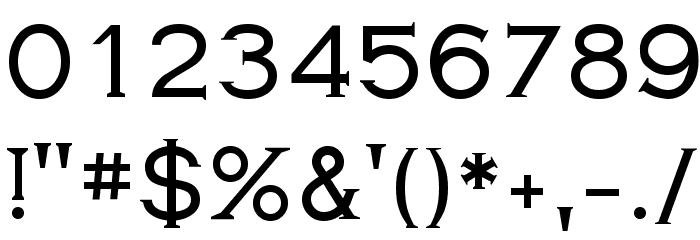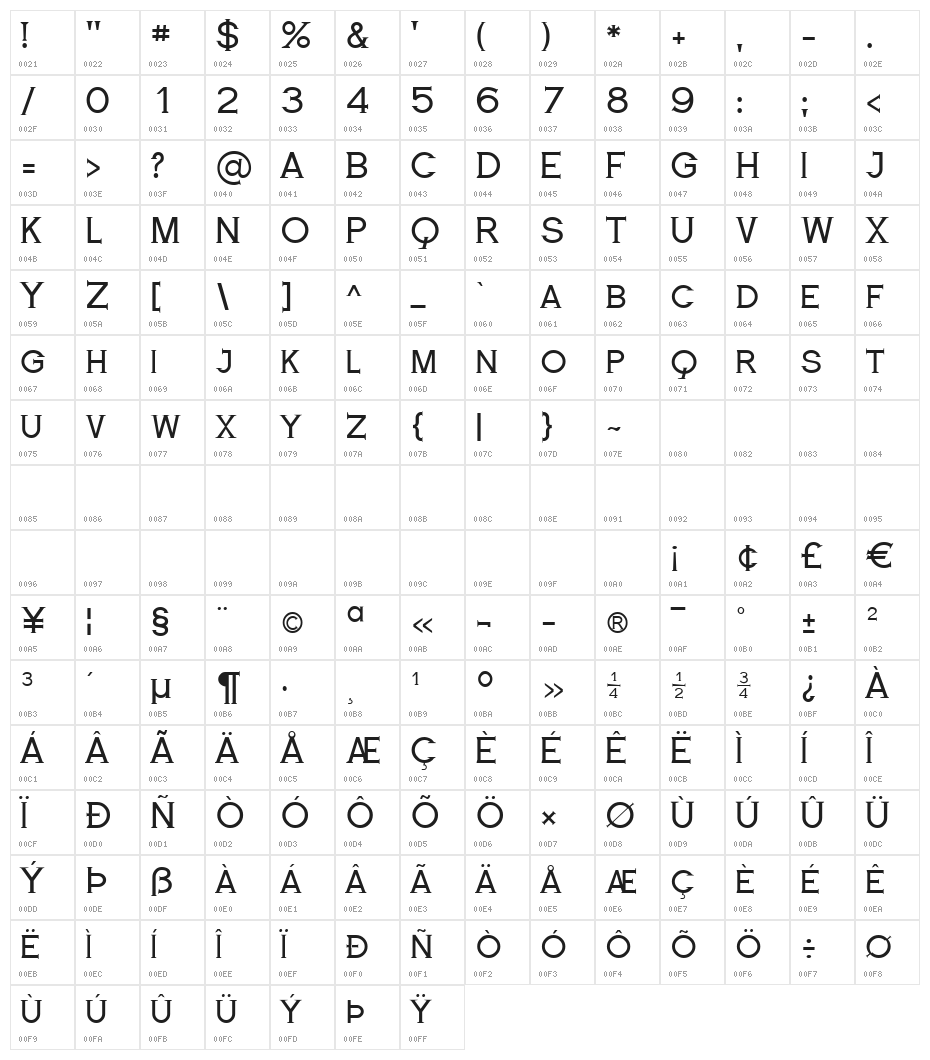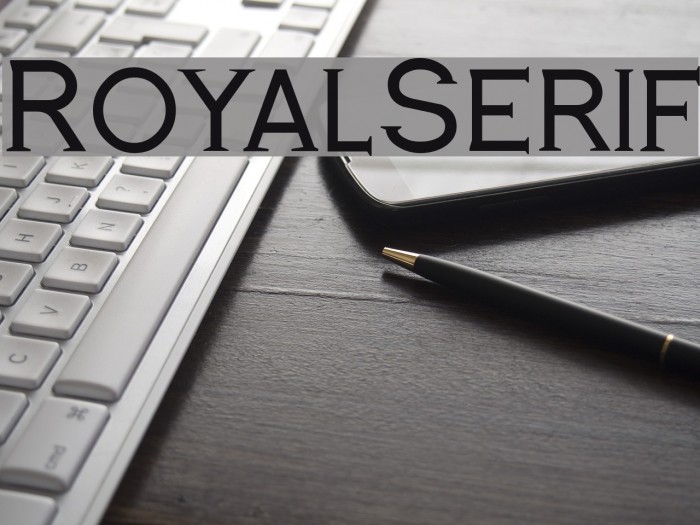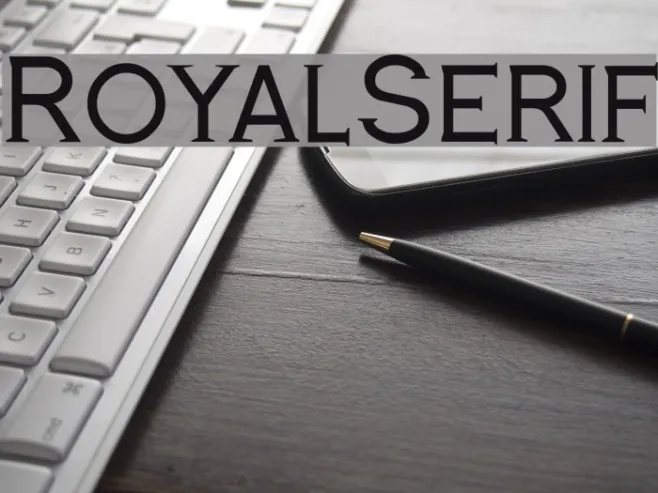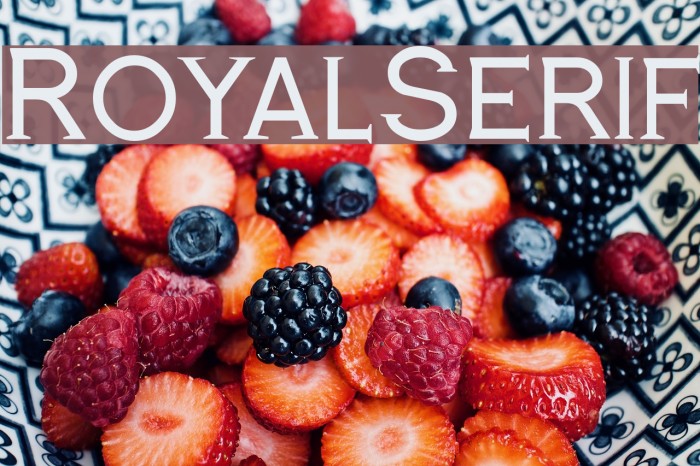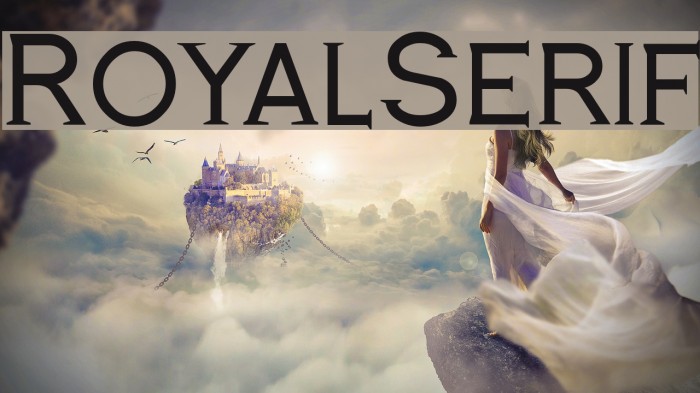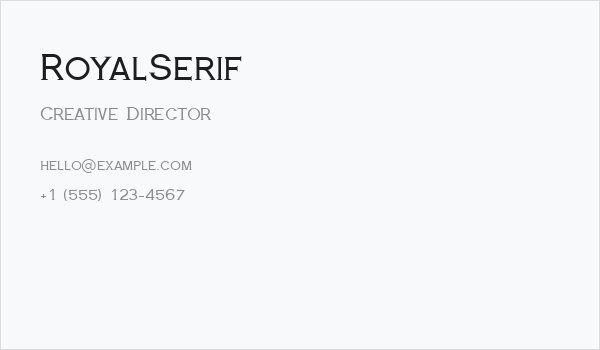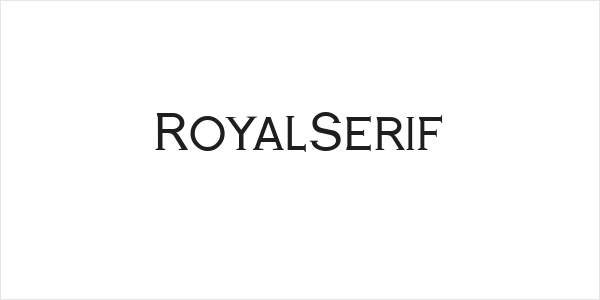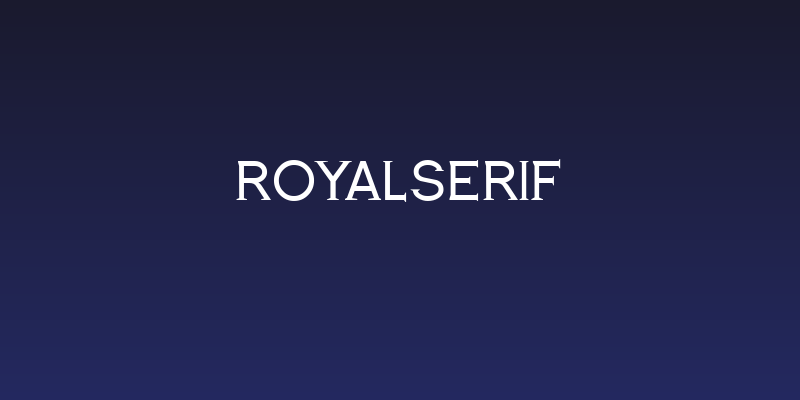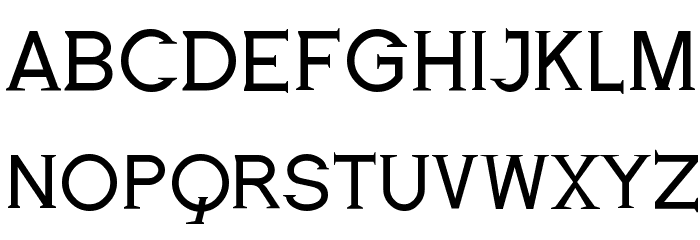
RoyalSerif Font
RoyalSerif Description
This font exudes a classic and timeless elegance, characterized by its distinct serif features. The strokes are well-defined, with a moderate contrast between thick and thin lines, lending a sophisticated and formal appearance. The uppercase letters stand tall with a balanced proportion, while the lowercase letters maintain a harmonious flow. The numerals are clear and legible, making them suitable for both display and text settings. Special characters are crafted with precision, adding to the font's versatility. Overall, this font is ideal for projects that require a touch of refinement and tradition.
| Proposed Projects | Ideal for book covers, formal invitations, editorial layouts, and branding materials. |